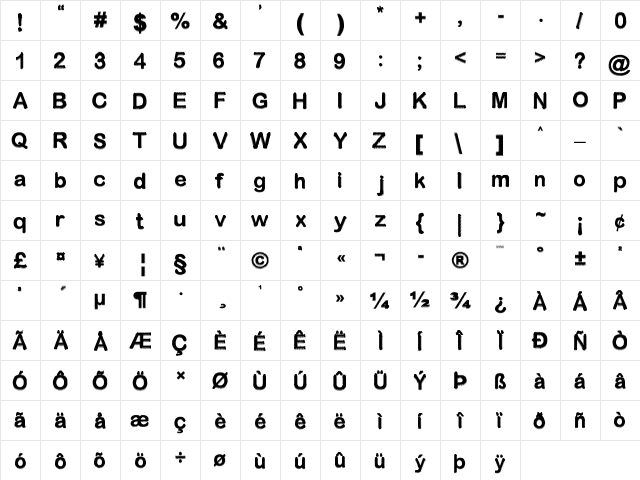
ODYWSS Regular
Design Context for ODYWSS Typeface
ODYWSS is a composed and adaptable typeface that performs quietly and consistently across a wide range of design contexts.
Pro Tip: Pair ODYWSS with a font of contrasting weight or personality to build a more expressive typographic hierarchy.